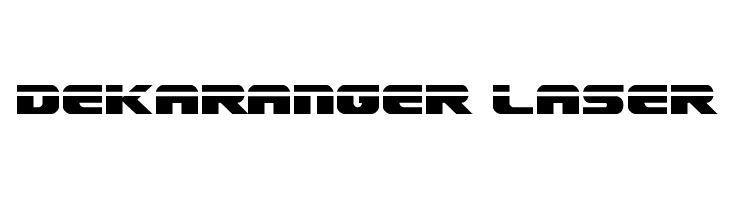
A bold, futuristic font with geometric and angular design elements.
A bold, italic, futuristic font with sharp angles and geometric shapes.
A bold, futuristic font with angular, geometric shapes and medium contrast.
A bold, geometric outline font with a futuristic and dynamic style.
A bold, italicized outline font with a futuristic and modern design.
A futuristic, striped font with bold, geometric shapes.
A futuristic, italic font with a striped, dynamic design.
A bold, futuristic font with geometric shapes and a sci-fi aesthetic.